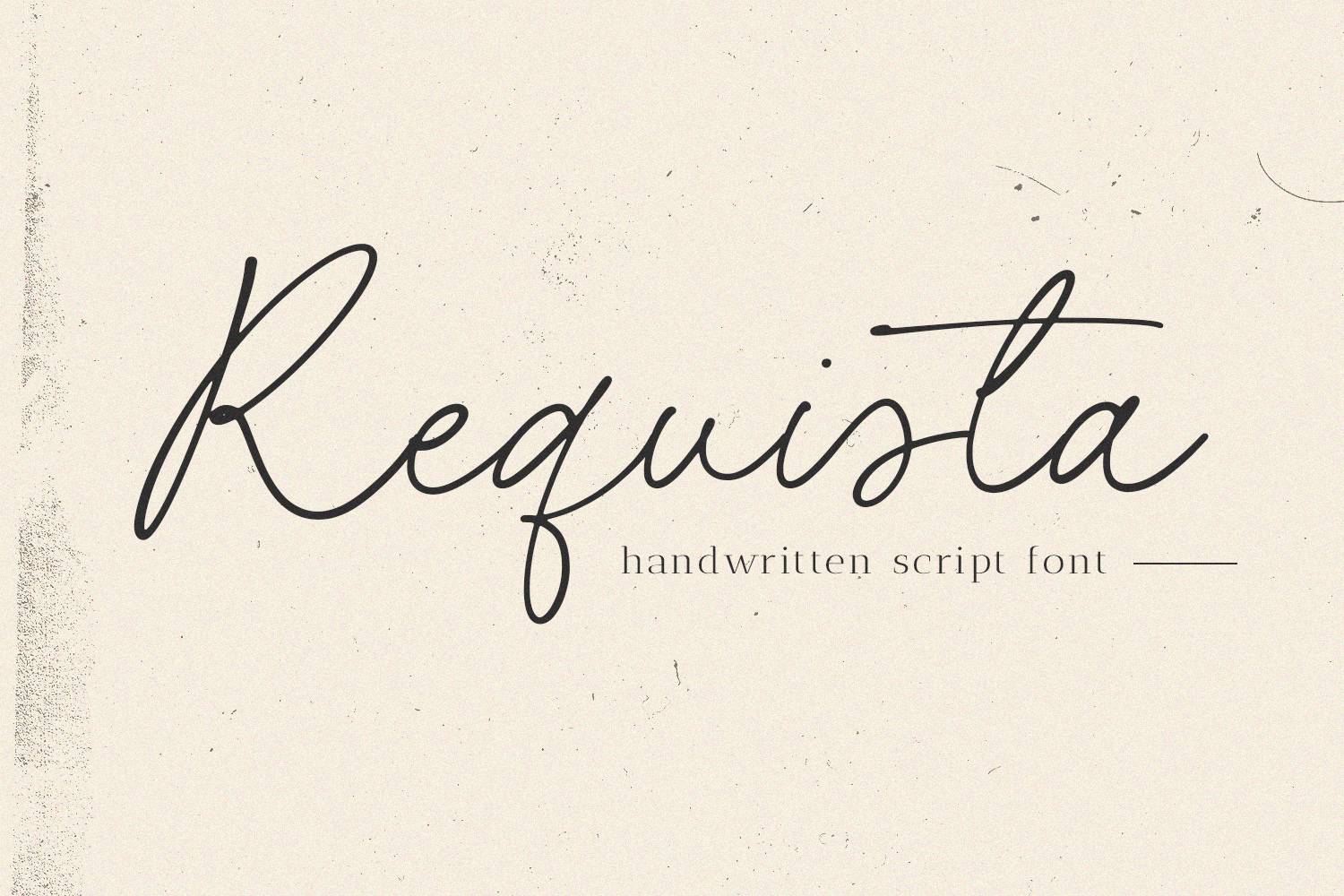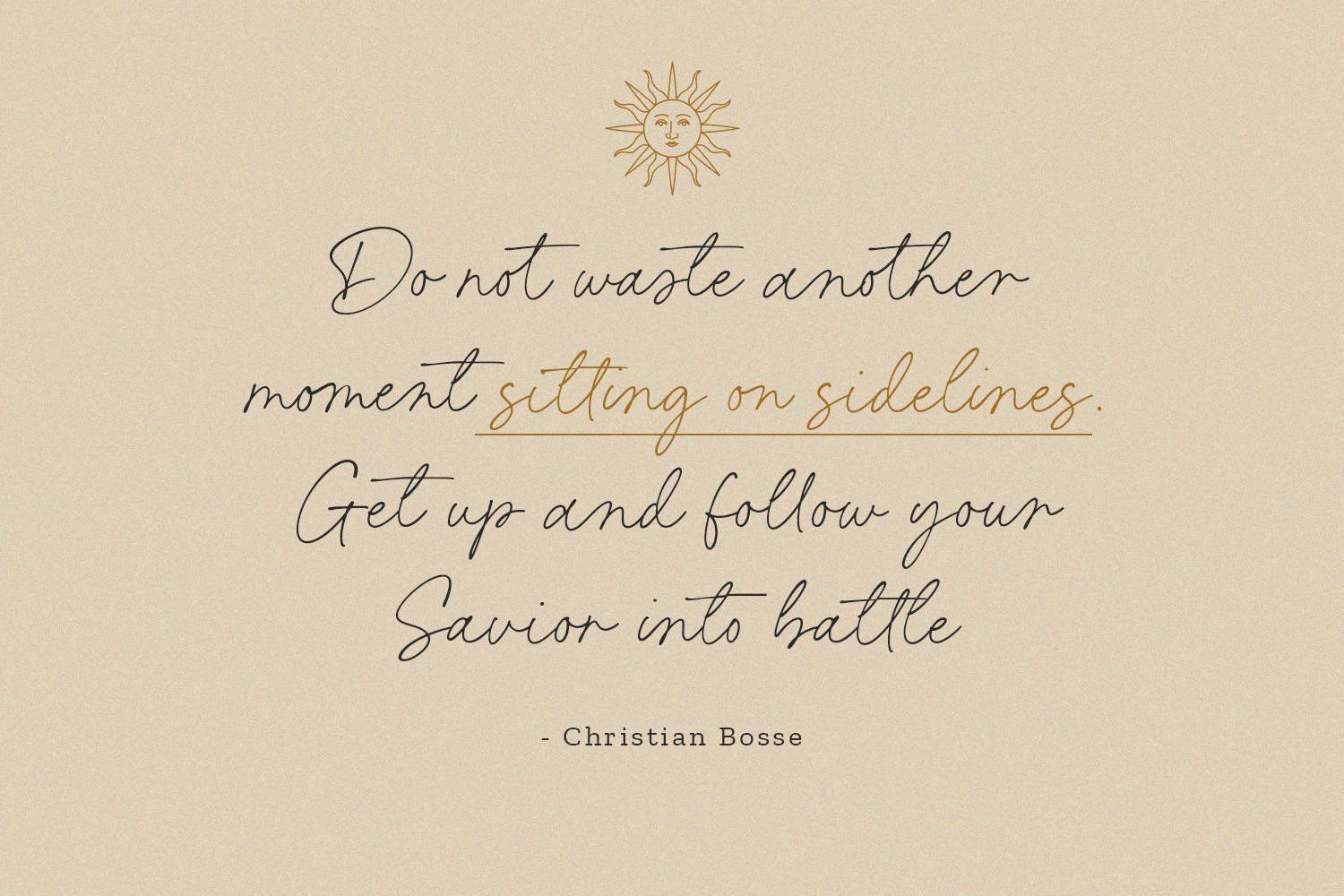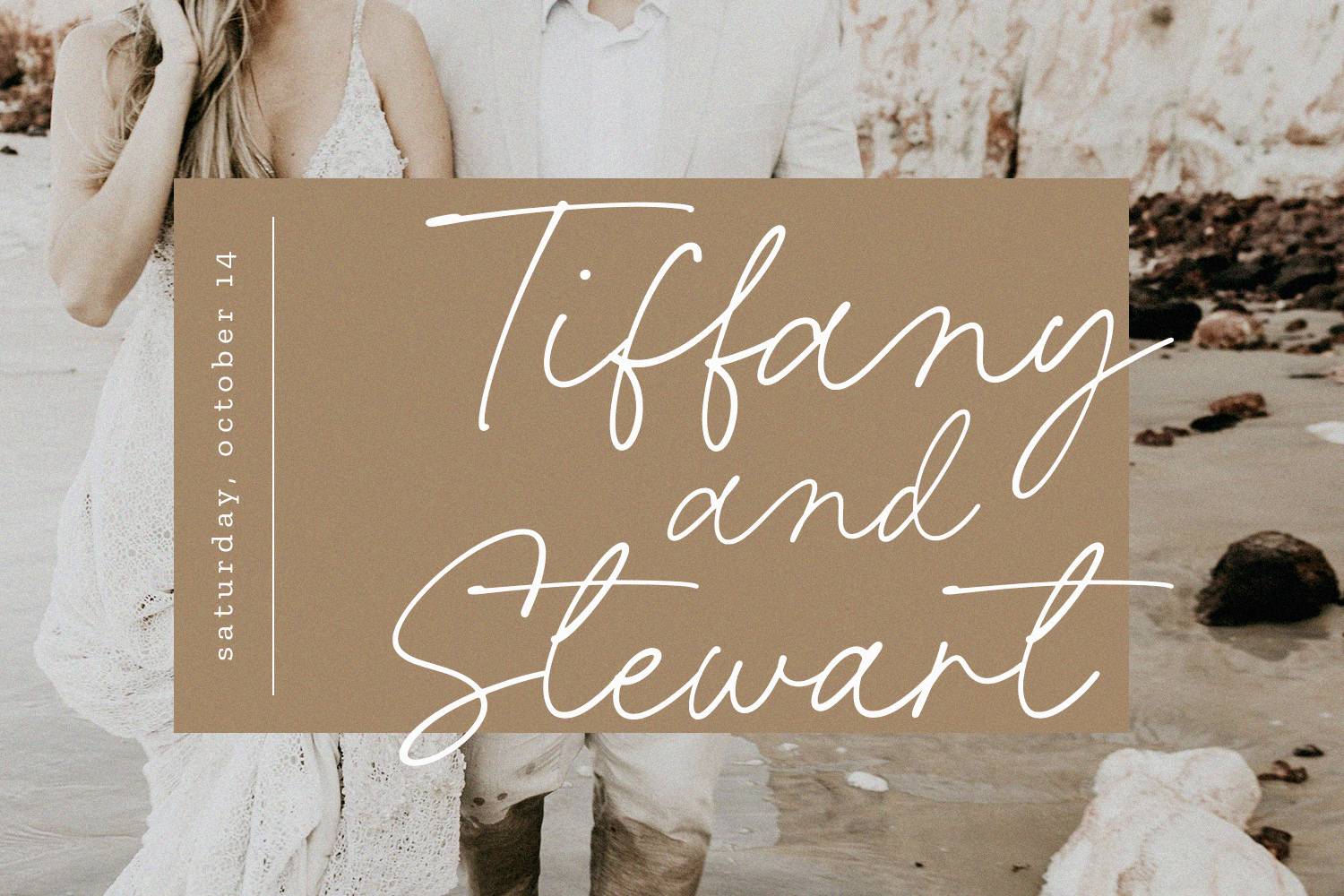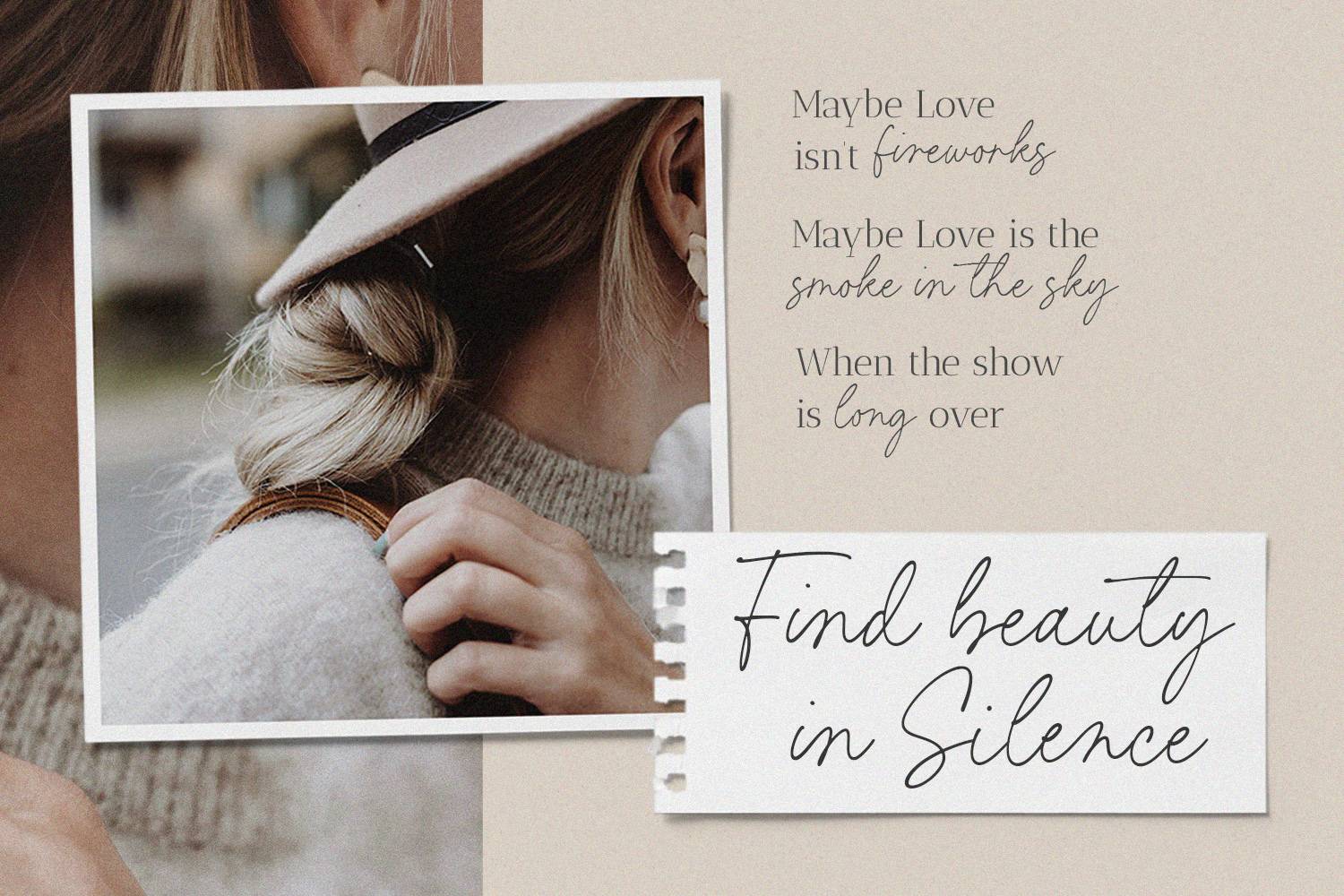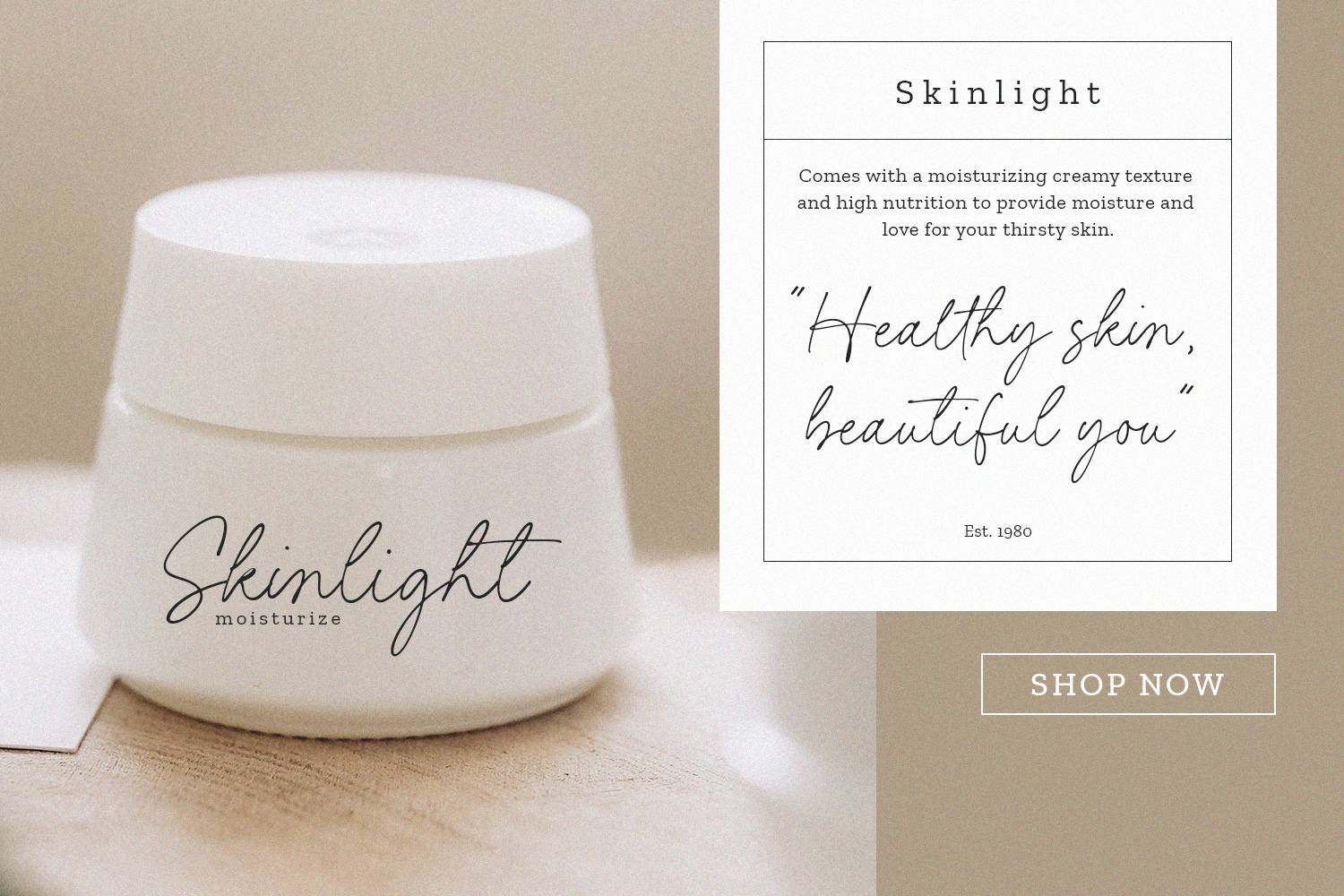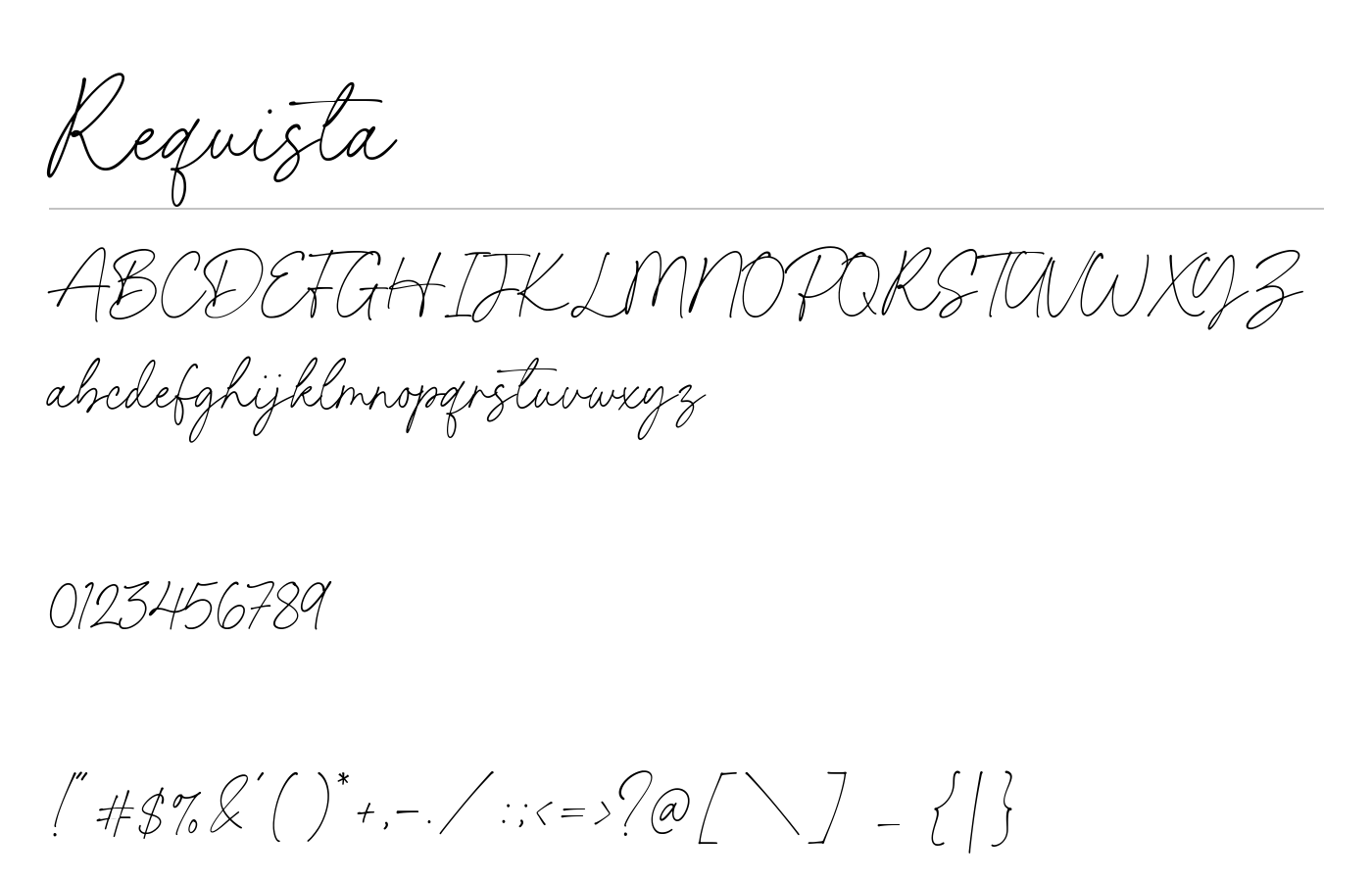
Requista is a delicate, modern script font characterized by its thin, flowing strokes and elegant handwritten style. Its slender letterforms and high x-height give it a graceful, airy feel, making it ideal for sophisticated branding, invitations, and personal styling where a refined, approachable touch is desired. This font works beautifully for projects that want to convey elegance and warmth without heaviness or formality.
Requista Font
About Requista Font